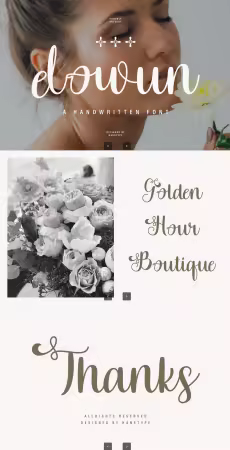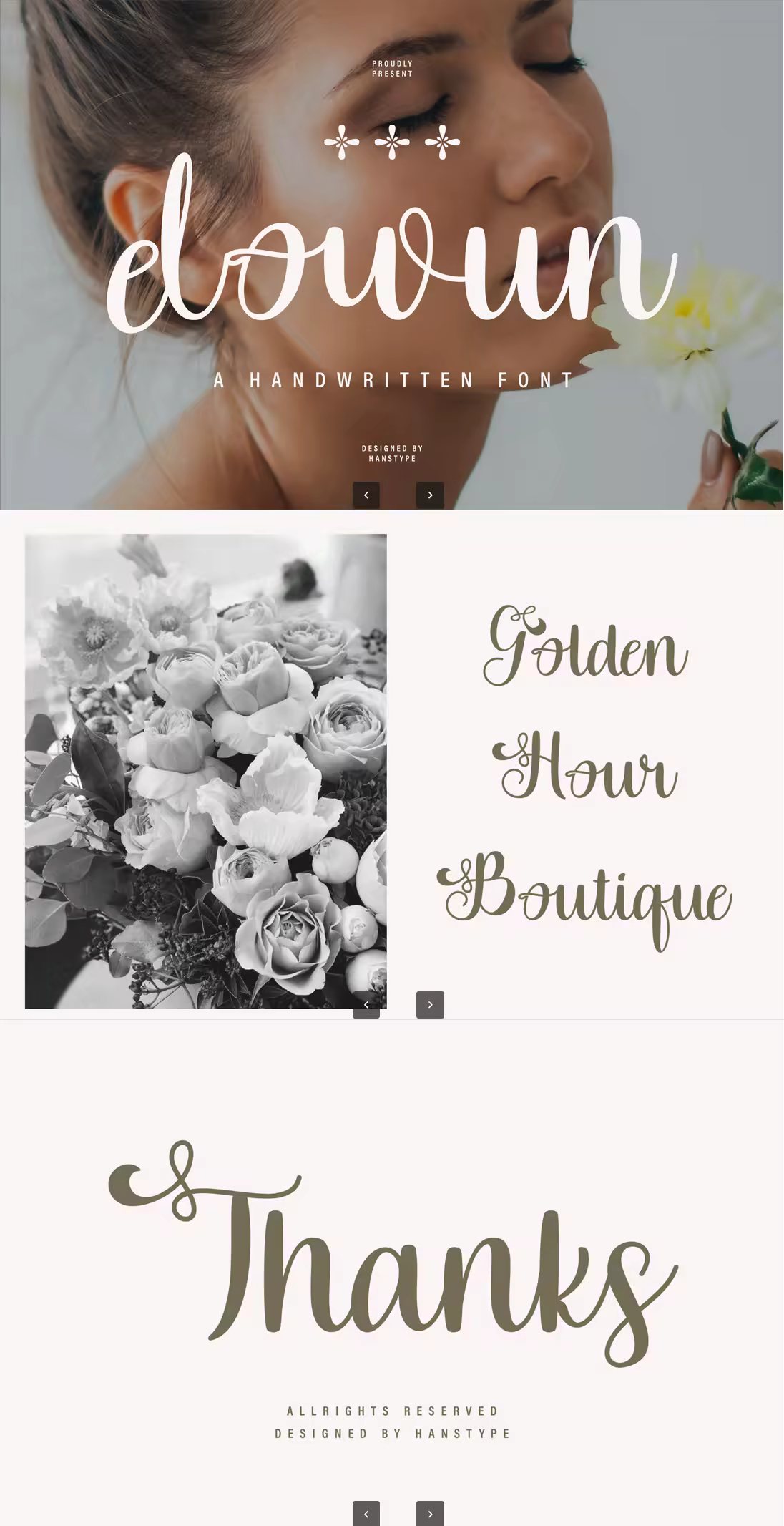
EE - Elowun - Handwritten Font 9DQJGFF
Elowun is a refined and elegant script font that embodies sophistication and grace. With its flowing, delicate curves and smooth strokes, it captures the essence of timeless beauty, making it ideal for luxury branding, invitations, and high-end design projects.